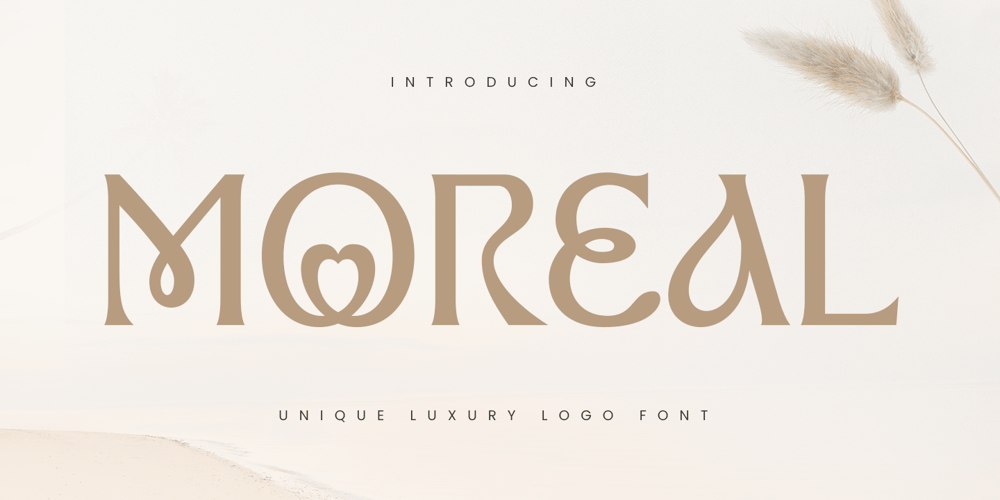
Moreal Font Family was designed by Zamroni Hamzah and published by Sensatype Studio. Moreal contains 1 styles and family package options. Introducing Moreal, the epitome of luxury and cinematic elegance in a serif font. Perfectly crafted for sophisticated and high-end designs, Moreal brings a touch of class and refinement to any project.Moreal Font Features: Luxury Design: A luxurious serif style ideal for upscale and sophisticated projects. Cinematic Appeal: Perfect for film titles, movie posters, and dramatic visual content. Versatile Usage: Suitable for branding, editorial layouts, elegant invitations, and more. Multiple Formats Inspirational Previews: Includes sample designs to inspire your creative projects. Elevate your designs with Moreal, the luxury serif font that exudes sophistication and style. Whether for high-end branding, cinematic projects, or elegant typography, Moreal adds a timeless and refined touch to your work. Make a statement with Moreal and let your designs shine with unparalleled elegance.